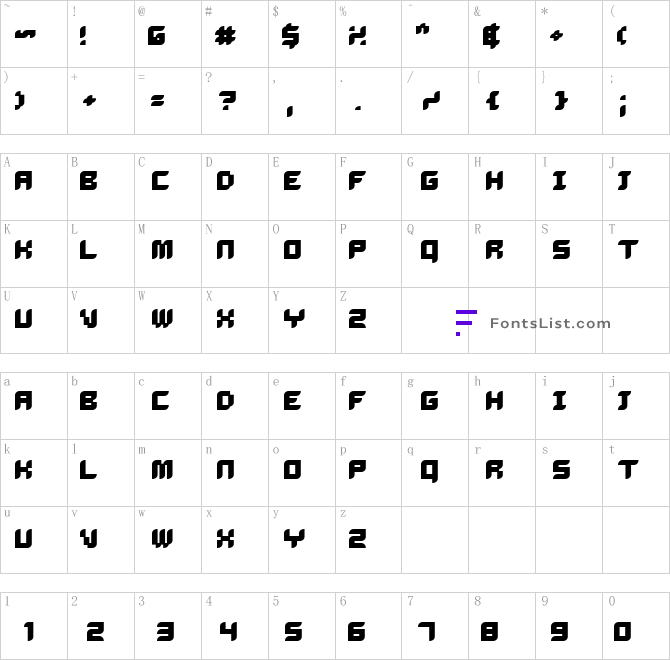
- Font Name:Dalila Bold
- Subfamily:Meir Sadan Dalila Bold
- Full Name:Dalila Bold
Dalila-Bold.ttf is a very beautiful artistic font, Dalila-Bold.ttf is widely used in the design and printing of various books and pictures,Dalila-Bold.ttf has a strong visual impact,Dalila-Bold.ttf is a commonly used font in newspapers, magazines and books, and is used in posters, e-commerce Poster design, store design, logo design, font design and other fields.Dalila-Bold.